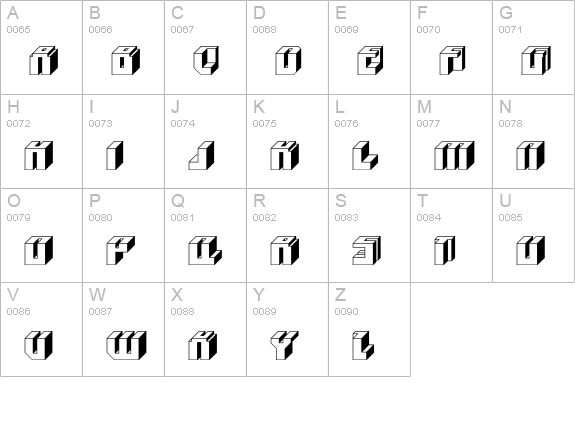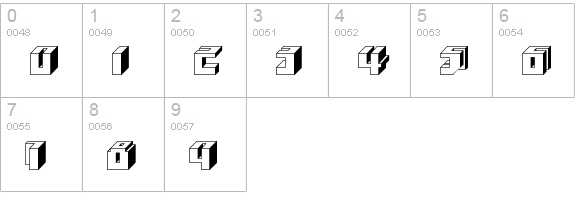
The Blocked font is a modern and stylish typeface that exudes confidence and strength. Its bold and edgy design features clean lines and sharp angles, making it perfect for creating eye-catching headlines and attention-grabbing designs. With its unique look, the Blocked font adds a touch of sophistication to any project, whether it's for branding, advertising, or social media graphics. What's even better is that the Blocked font is available for free download at FontsMarket.com. Yes, you read that right - you can get your hands on this versatile and striking font without spending a dime. Don't miss out on adding the Blocked font to your font collection and take your designs to the next level!